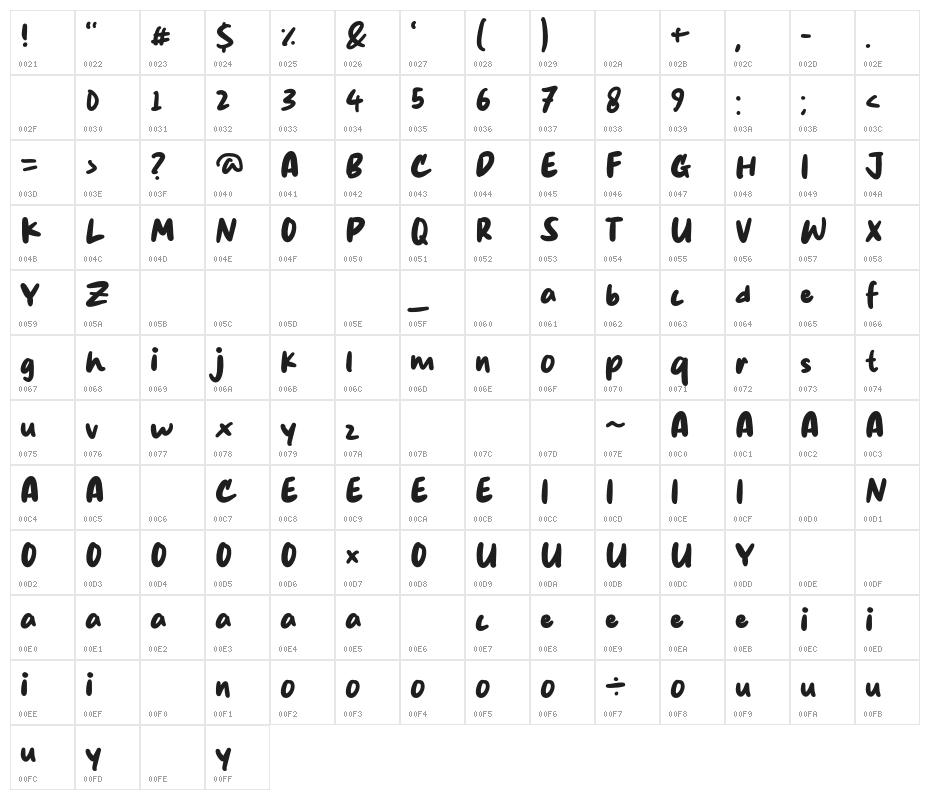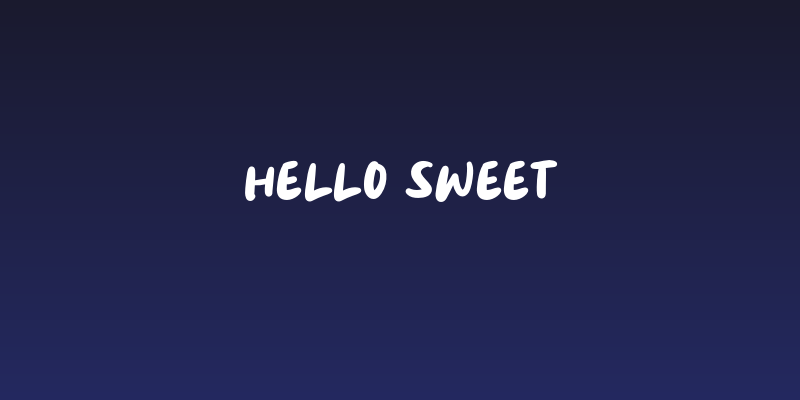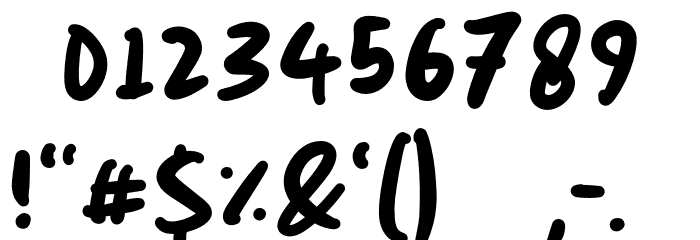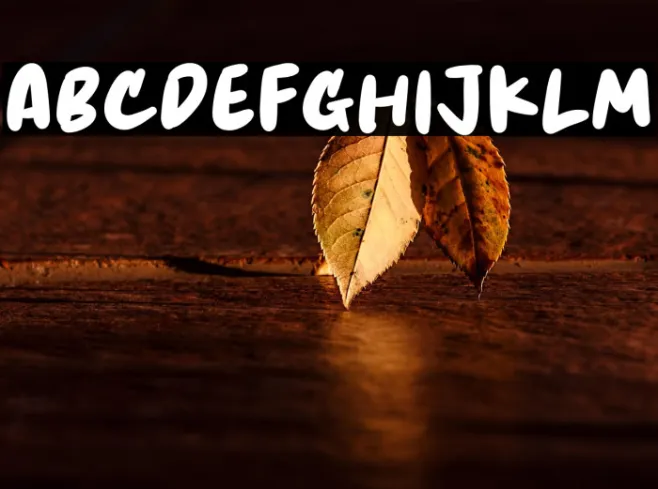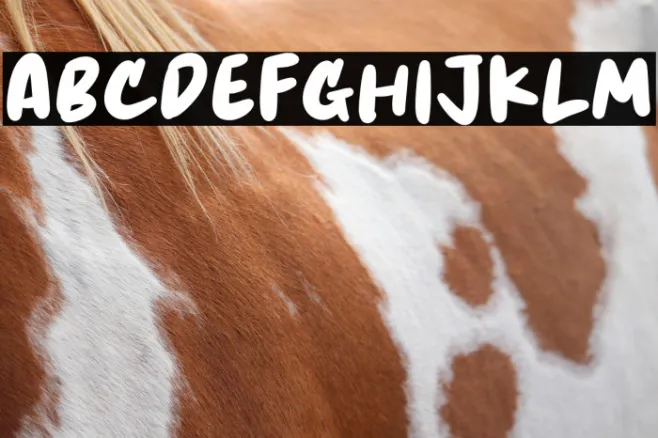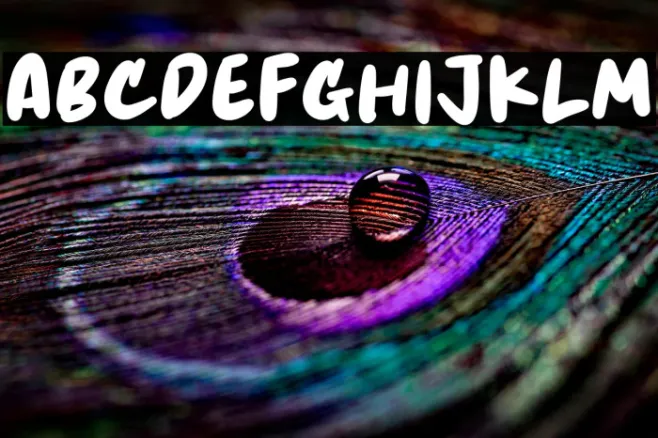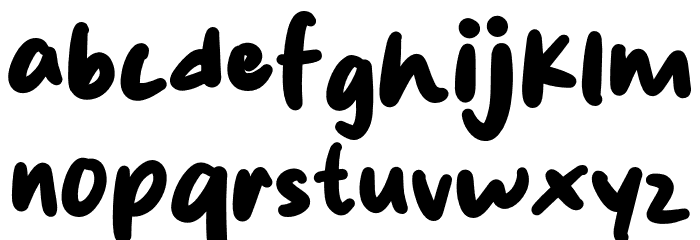
Hello Sweet Font
Hello Sweet Description
This playful and bold handwritten font exudes a sense of fun and creativity. The characters are rounded and slightly irregular, giving them a casual and approachable feel. The strokes are thick and consistent, providing a strong visual presence. The font maintains a uniform baseline, while the varying heights of the letters add a dynamic touch. Its informal style makes it perfect for projects that require a personal or whimsical touch. The numbers and special characters are designed to match the playful nature of the alphabet, ensuring a cohesive look across all text elements.
| Proposed Projects | Ideal for greeting cards, children's books, playful branding, and social media graphics. |